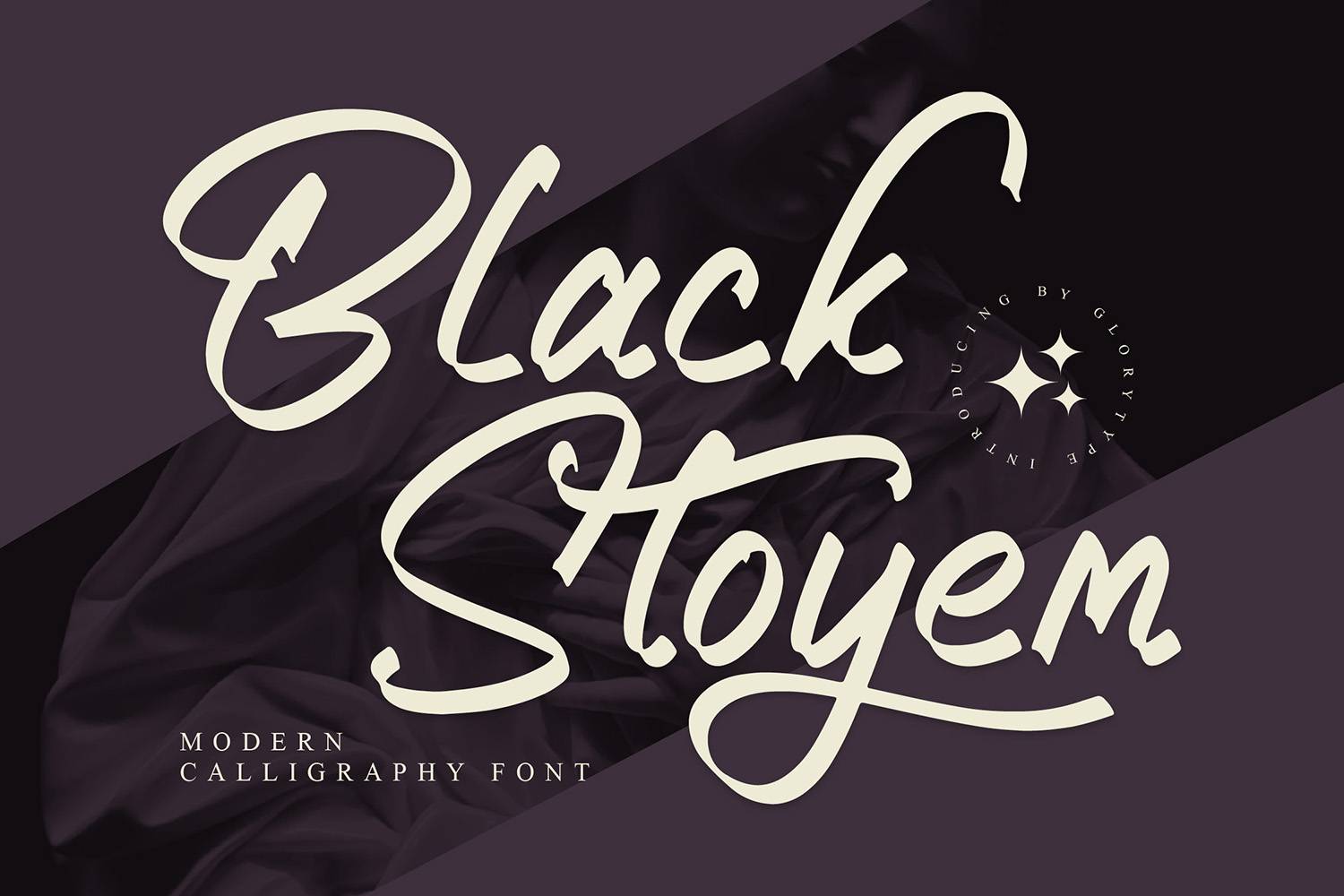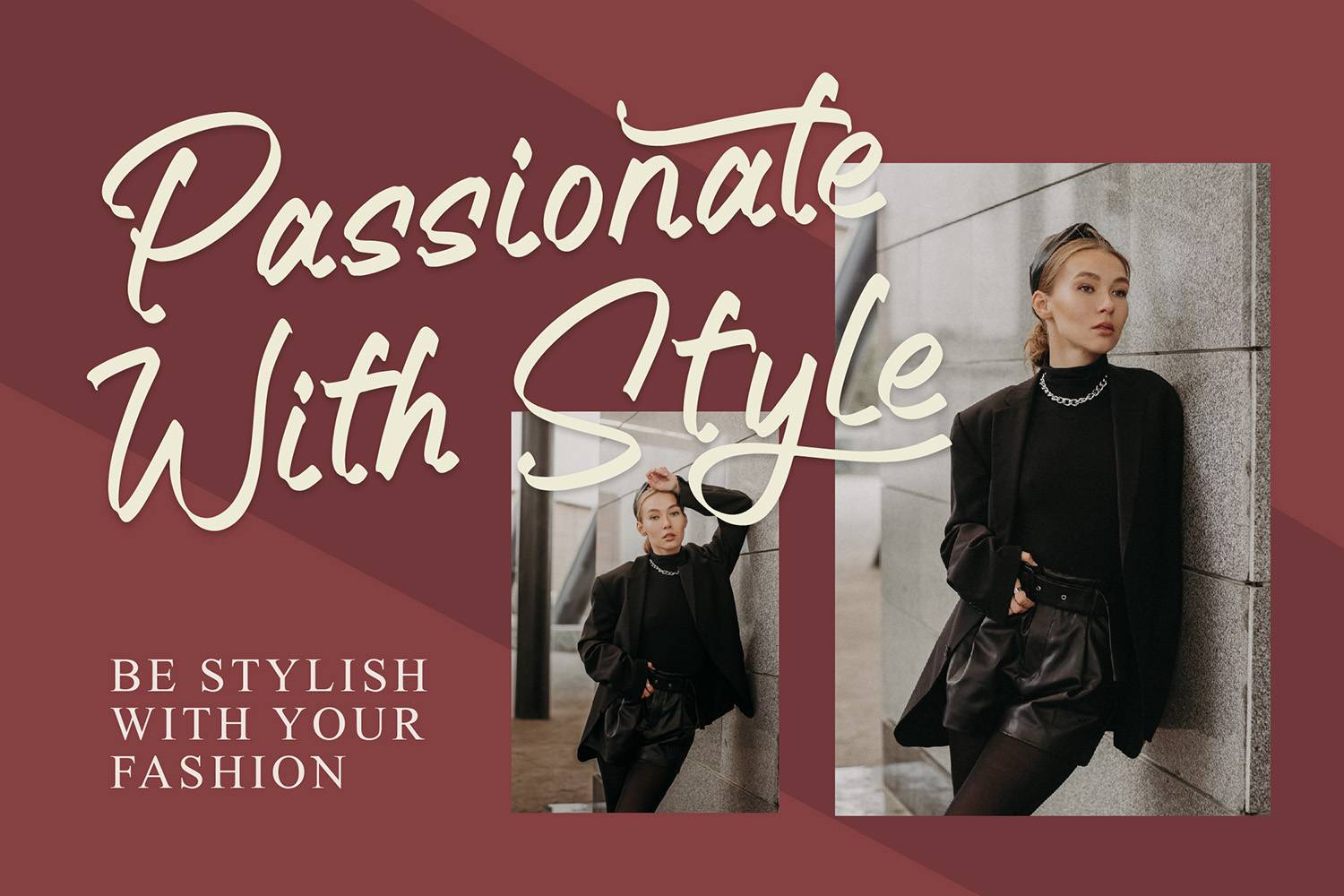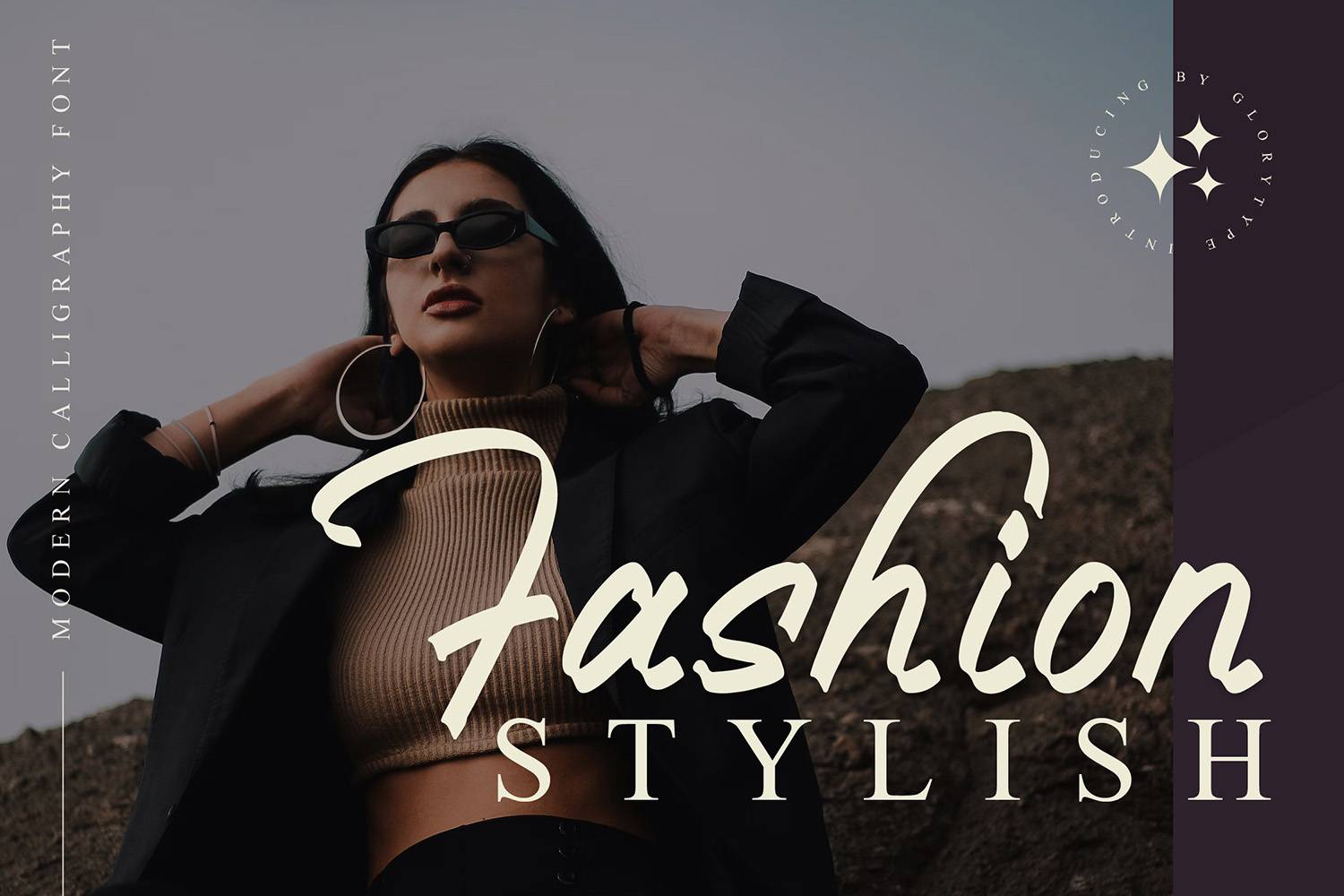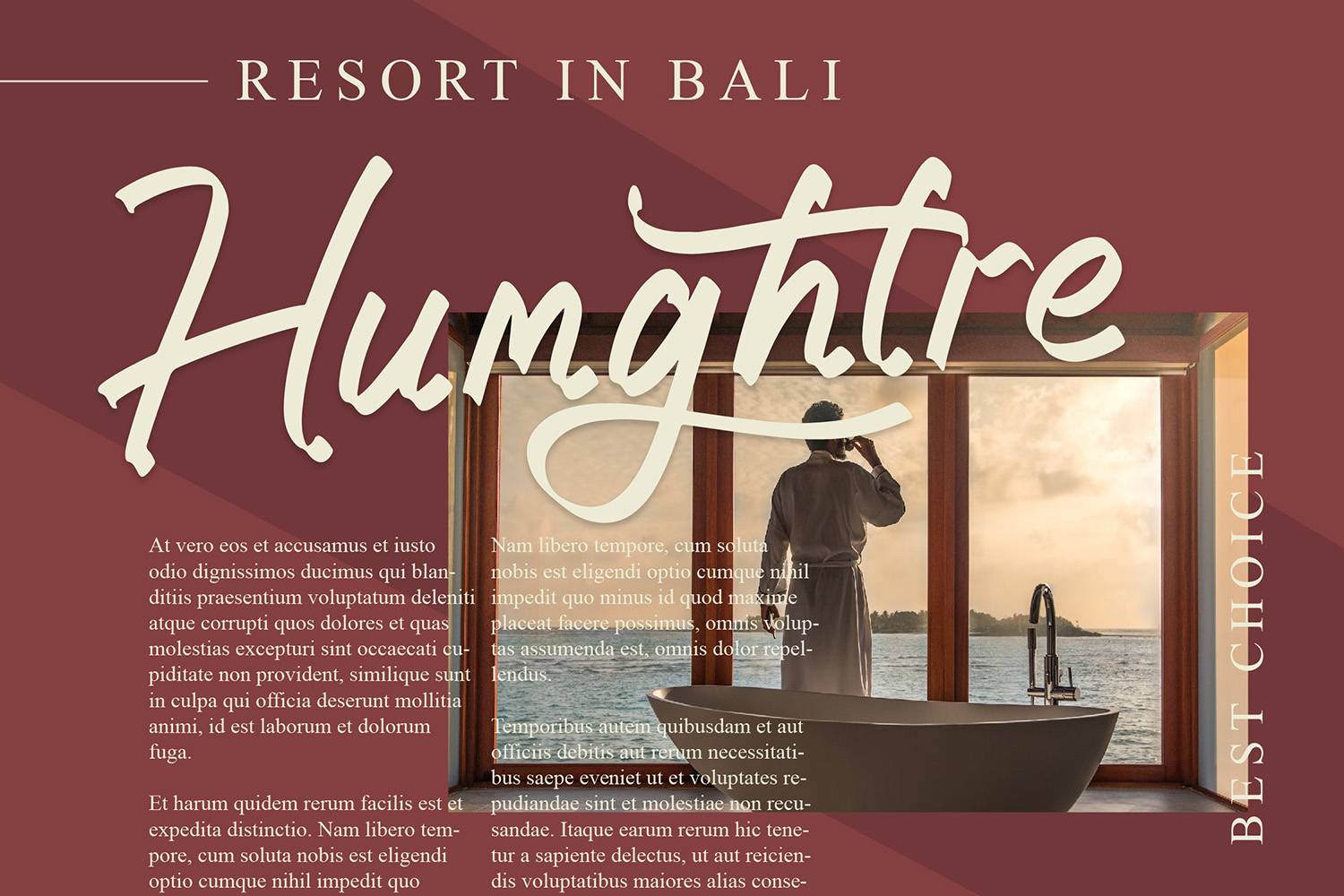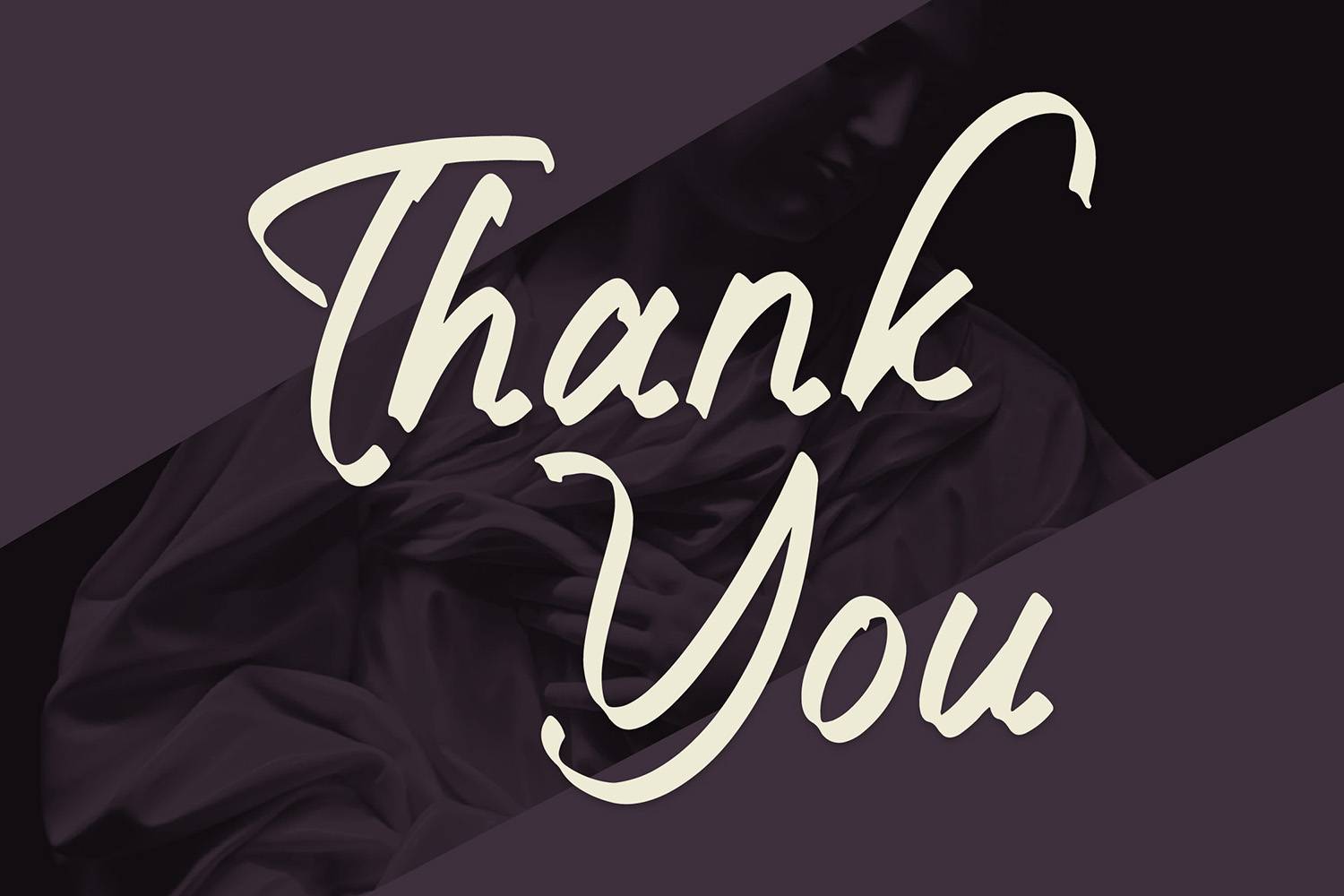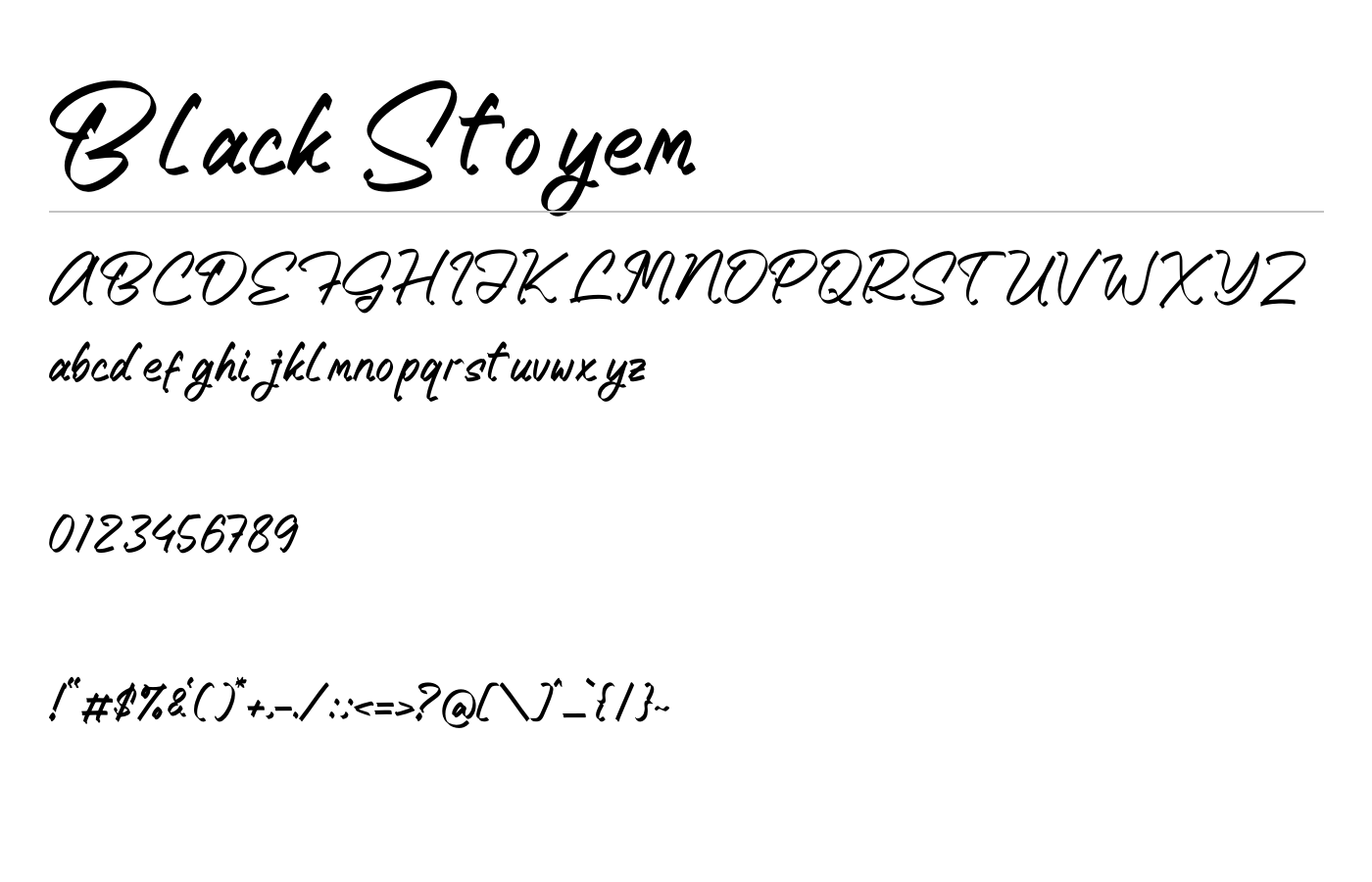
Black Stoyem is a lively script font with a handwritten feel, featuring smooth, flowing strokes and moderate contrast that give it an elegant yet approachable style. Its natural, slightly casual letterforms make it perfect for creative branding, invitations, and personal projects where warmth and personality are desired. This font works well in headlines or logos, adding a touch of sophistication without losing a friendly, dynamic vibe.
Black Stoyem Font